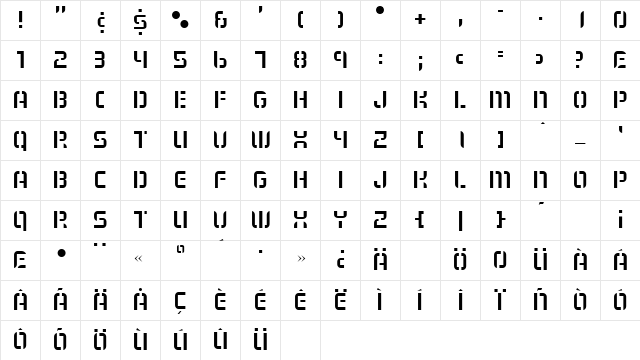
Modsten Regular Free Font
Modsten Regular
Modsten Family
Design Context for Modsten
Modsten is a composed and adaptable typeface that performs quietly and consistently across a wide range of design contexts.